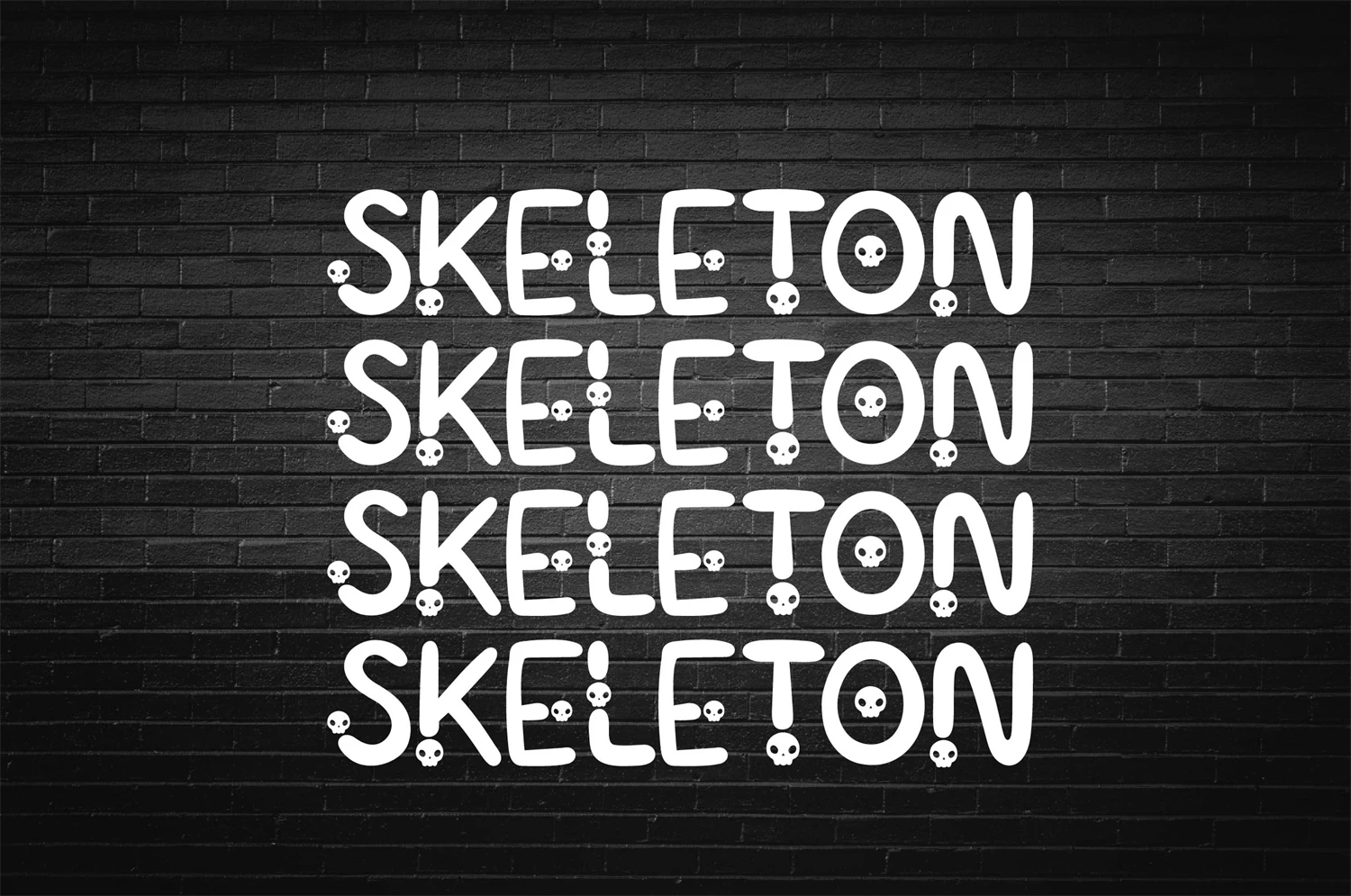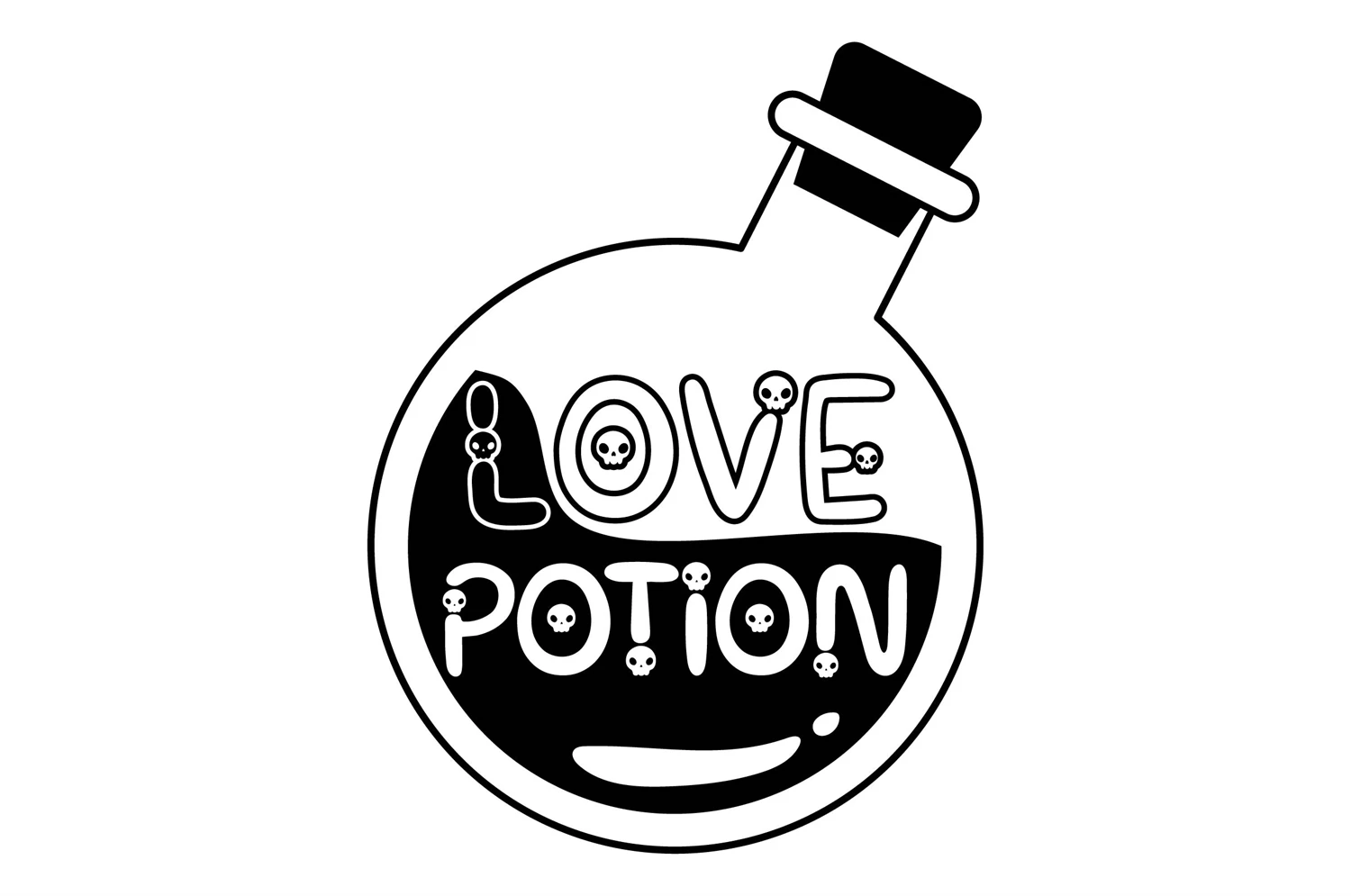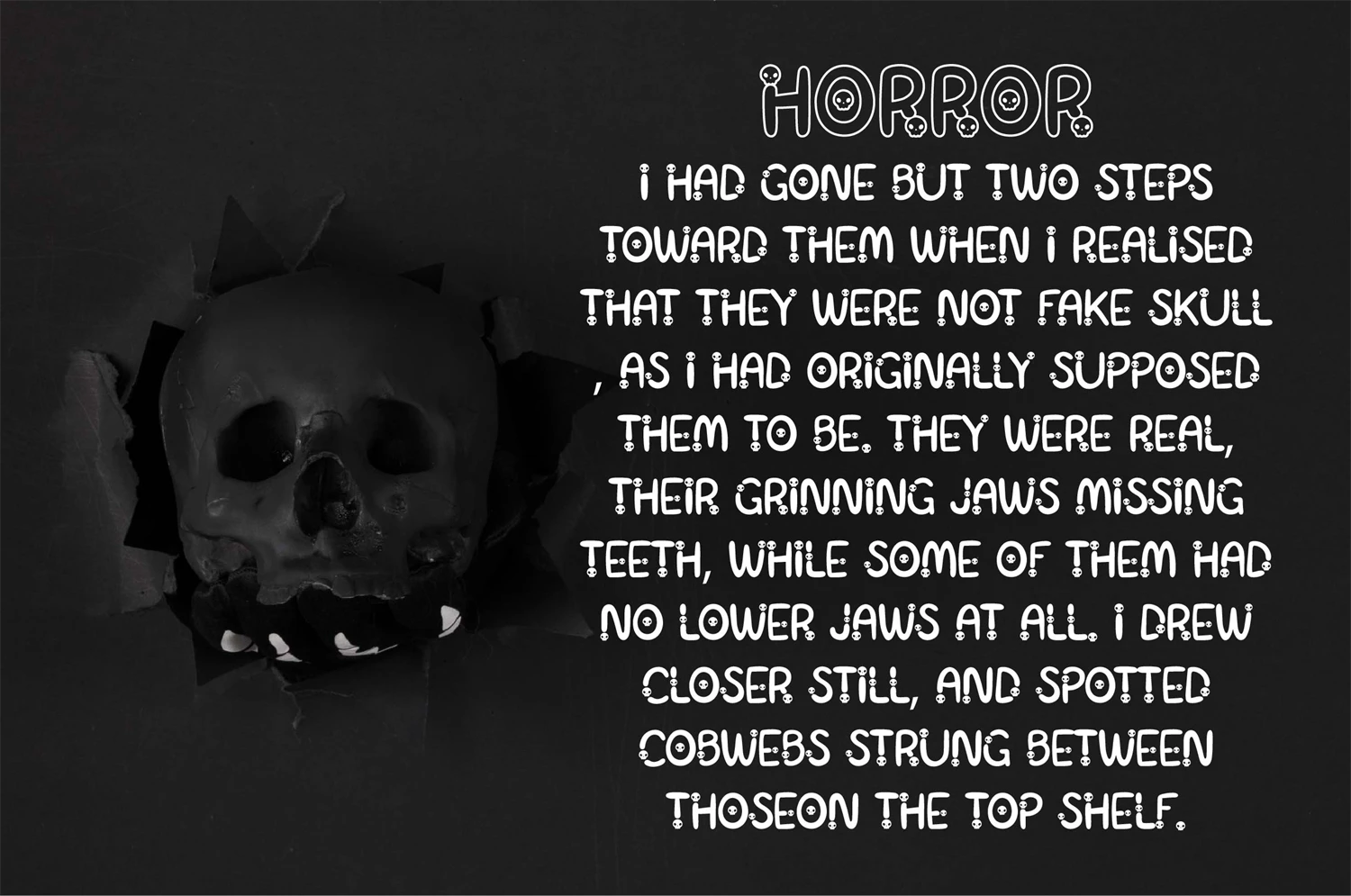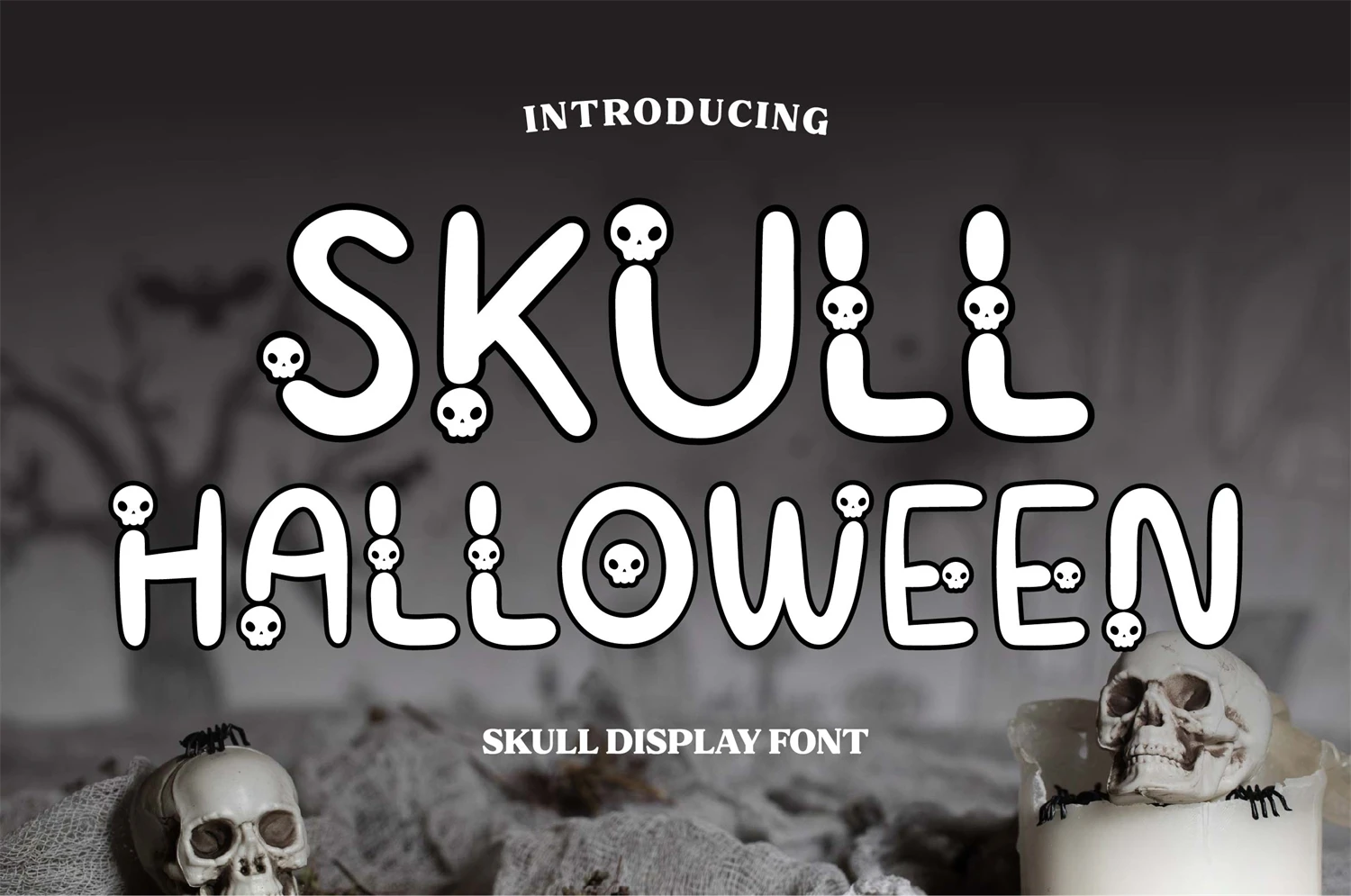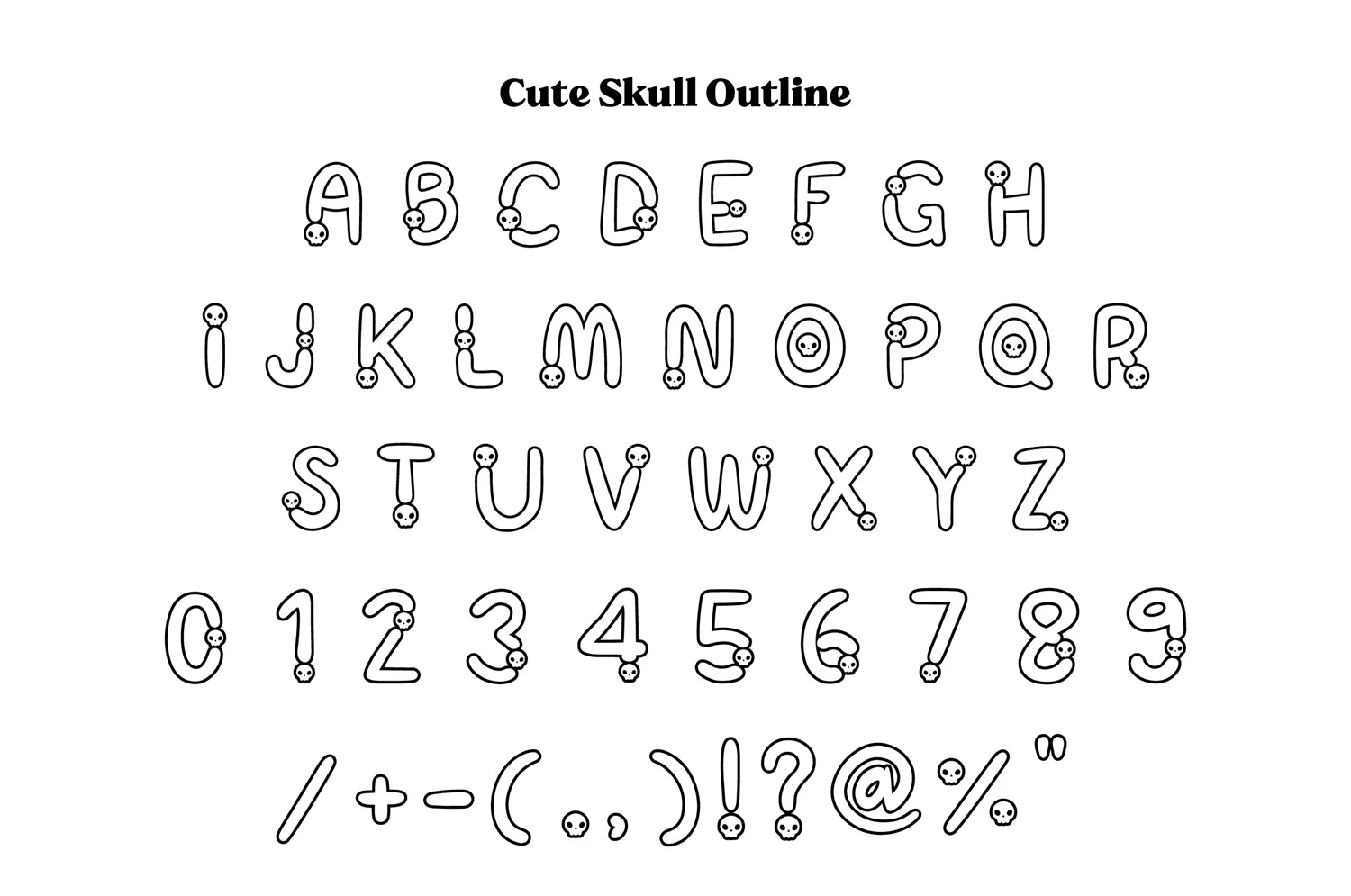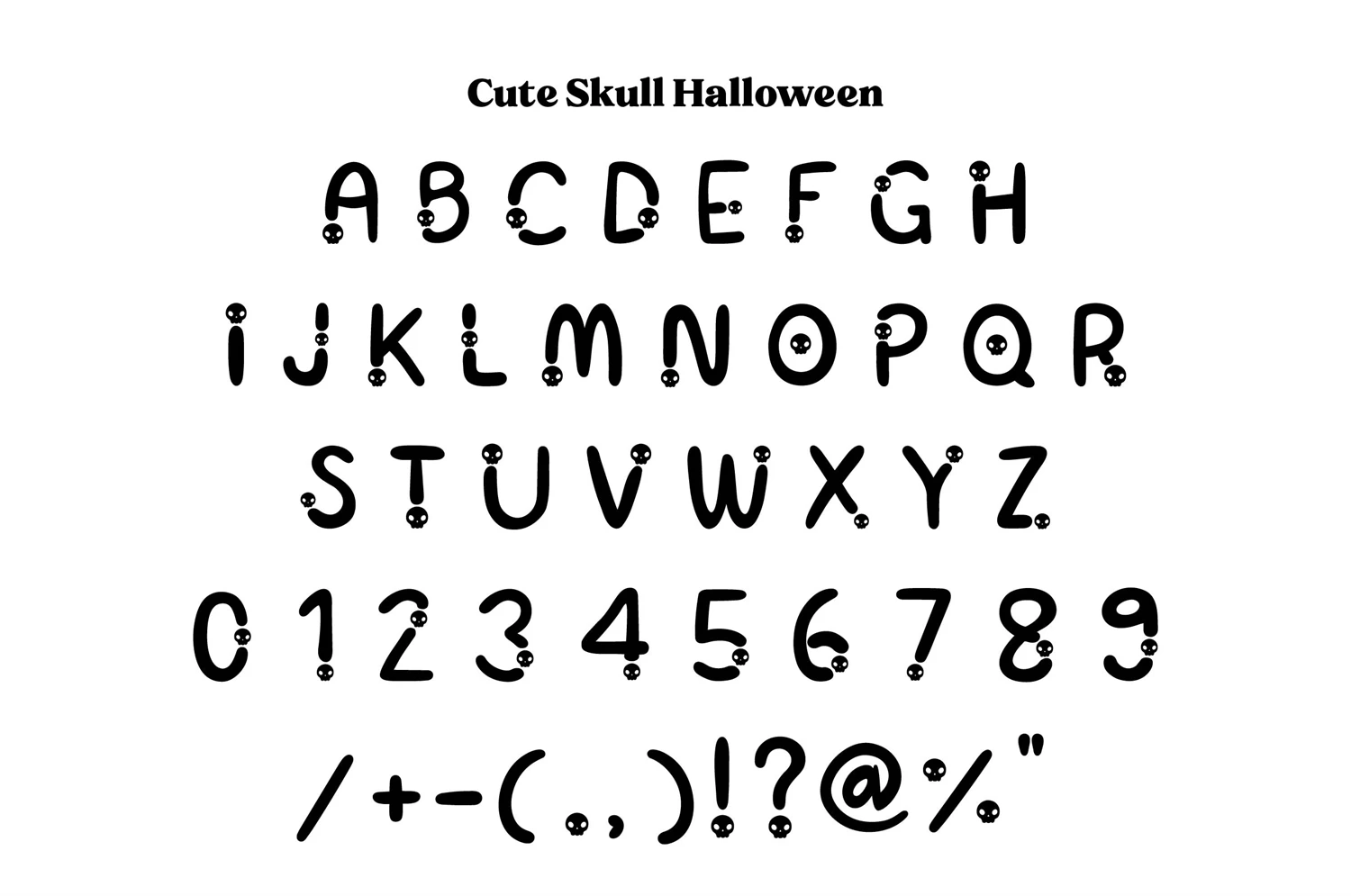
Immerse yourself in the Halloween spirit with the unique and playful "Cute Skull Halloween" font, available in both regular and outline styles. Possessing a charming quality, this font adds a delightful touch to any design with its whimsical skull theme. It's the perfect choice for infusing a bit of fun into school projects, enhancing the creativity of your worksheets, or adding a quirky element to your t-shirt designs. Equip yourself with this captivating font and turn any ordinary project into a piece of spook-tacular art. Welcome an aura of playful mystery, let your creativity run wild with the "Cute Skull Halloween" font.